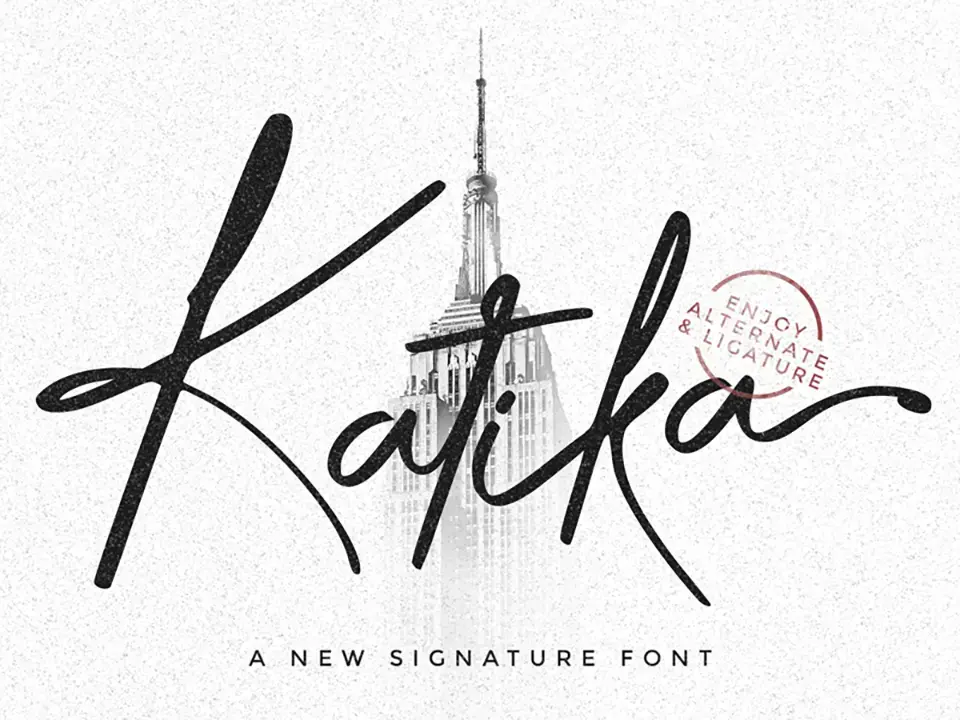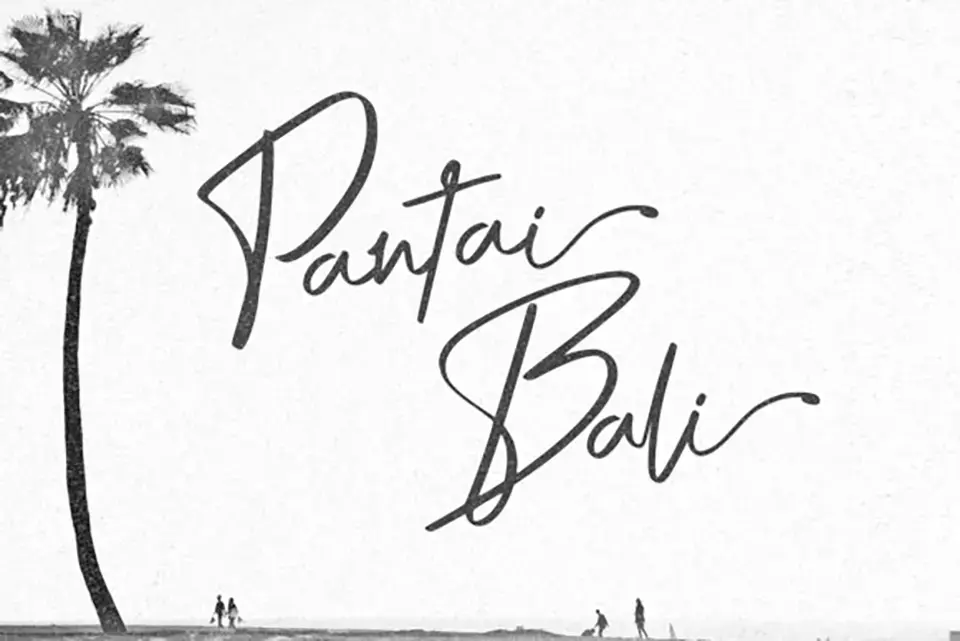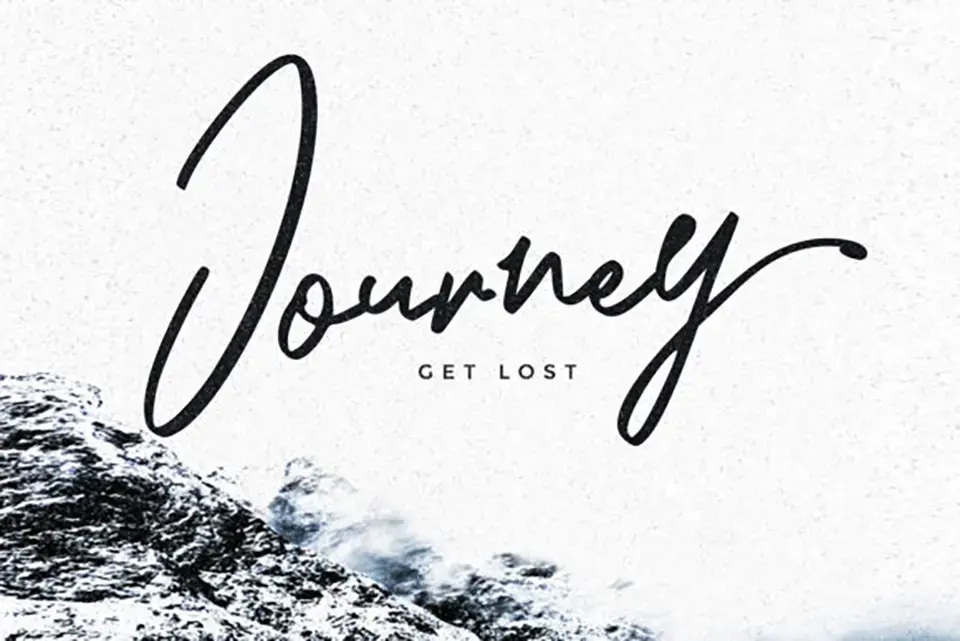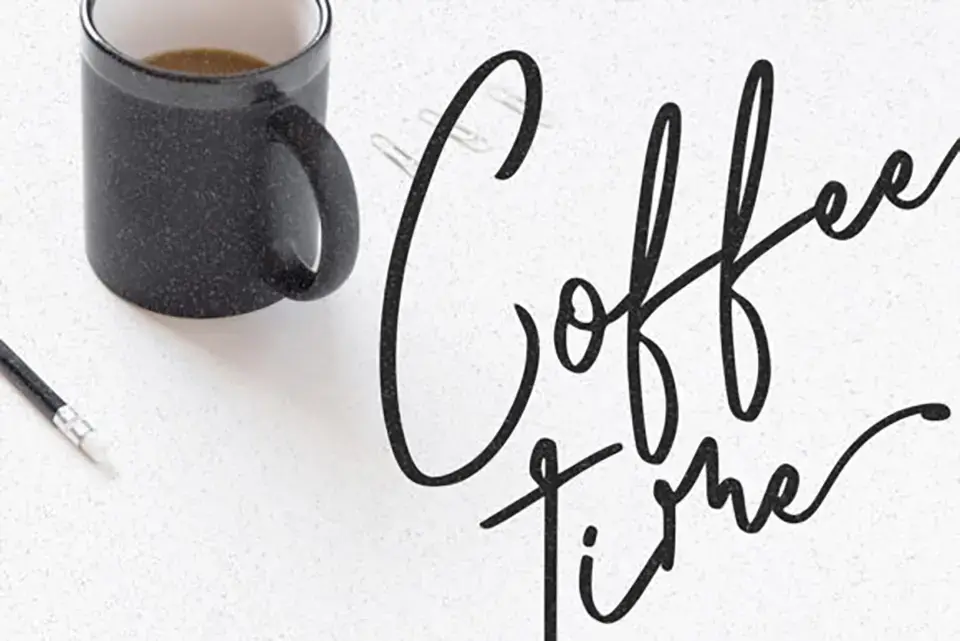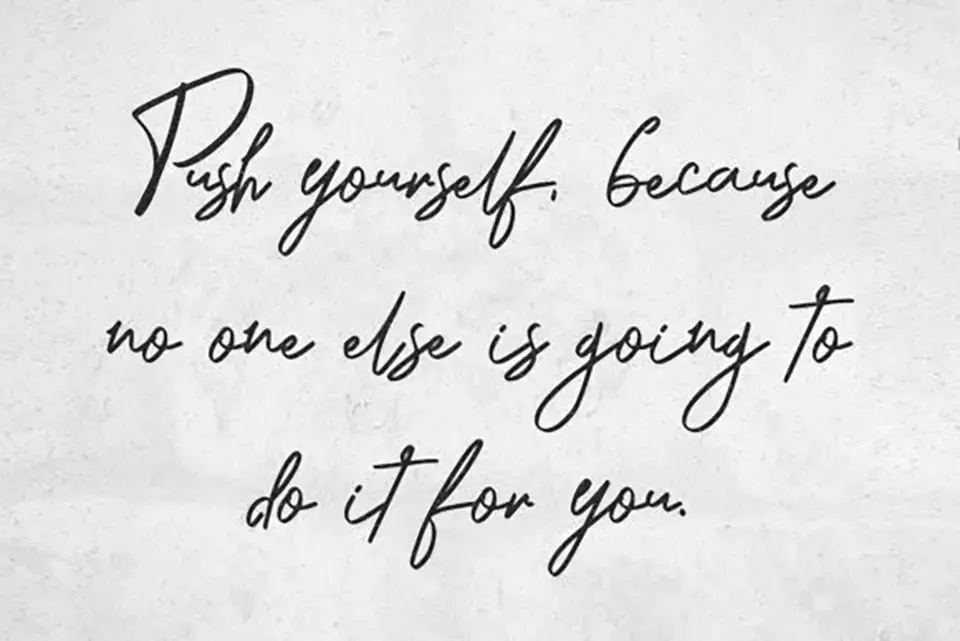
Katika Font
Katika is a sophisticated handwritten signature script font crafted by DYSA Studio, featuring smooth, fluid strokes and elegant curves that deliver an authentic, hand-lettered aesthetic. With its minimalist design and contemporary sensibility, this font excels at bringing personality and refinement to branding projects, logos, social media content, invitations, and promotional materials. The typeface's natural flow creates a graceful appearance suitable for luxury fashion brands, wedding stationery, and high-end packaging design.